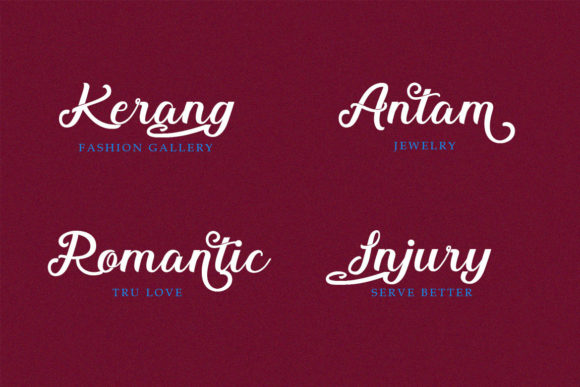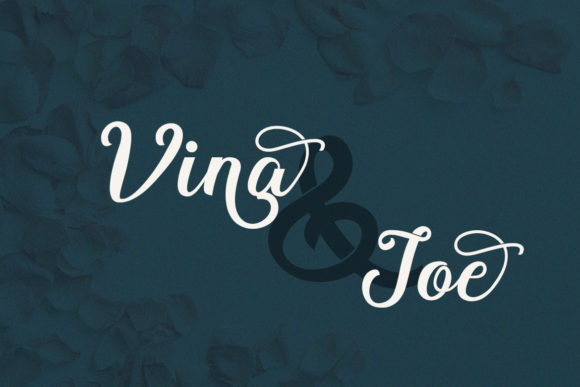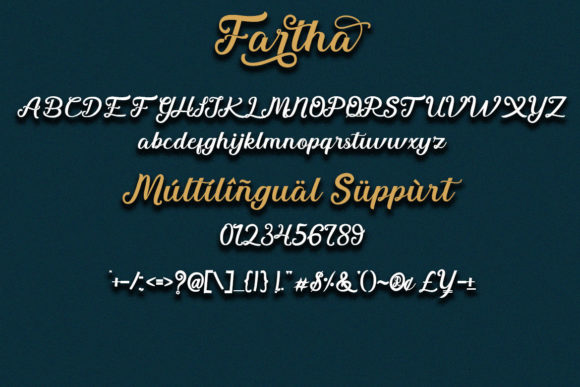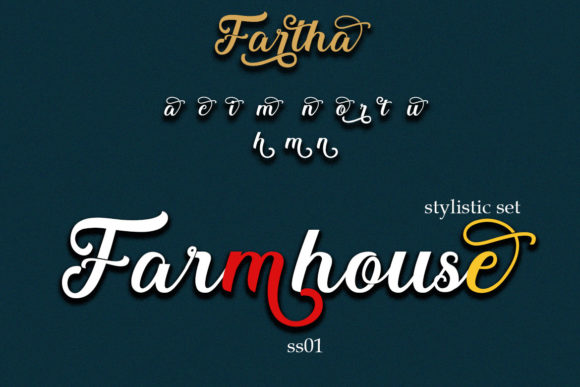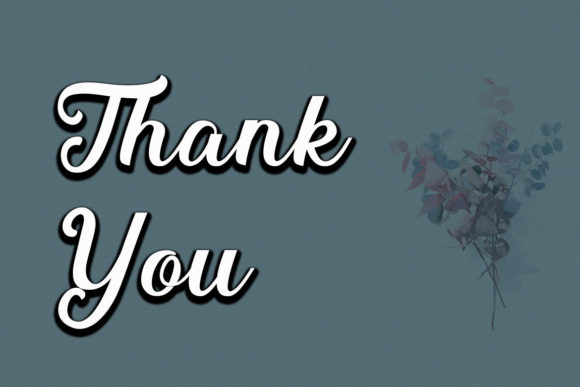
Fartha Font: Elevate Your Designs with Elegance and Sophistication
In the world of typography, fonts play a crucial role in conveying the tone and personality of a design. For designers and crafters seeking to add a touch of elegance and refinement to their work, Fartha Font is an exceptional choice. This lovely and delicate script font is specifically designed to bring a fresh and sophisticated look to various designs, making it an ideal selection for those who value beauty and class.
The Essence of Fartha Font
Fartha Font is a meticulously crafted script font that embodies elegance and poise. Its delicate strokes and refined lines create a sense of luxury, making it perfect for designs that require a high level of sophistication. Whether you’re working on a branding project, wedding invitation, or packaging design, Fartha Font is sure to impress with its beautiful and refreshing aesthetic.
Key Features of Fartha Font
- Delicate and Elegant Design: Fartha Font boasts a delicate and elegant design, characterized by smooth lines and flowing curves that exude refinement and poise.
- Script Font Style: As a script font, Fartha features connected letters that create a sense of fluidity and continuity, adding a touch of sophistication to any design.
- Highly Versatile: Fartha Font is highly versatile and can be used for a wide range of design projects, including branding, advertising, packaging, and more.
- Easy to Read: Despite its delicate nature, Fartha Font is easy to read, making it suitable for both headings and body text.
Uses of Fartha Font
Fartha Font’s versatility makes it an excellent choice for various design applications. Some of the most popular uses of this font include:
- Wedding and Event Invitations: Add a touch of elegance and sophistication to your wedding or event invitations with Fartha Font.
- Branding and Logo Design: Use Fartha Font to create a luxurious and refined brand identity that reflects your company’s values and personality.
- Packaging Design: Elevate your packaging design with Fartha Font, perfect for high-end products or special edition releases.
- Advertising and Marketing Materials: Make a lasting impression with Fartha Font in your advertising and marketing materials, such as brochures, flyers, and posters.
Tips for Using Fartha Font Effectively
To get the most out of Fartha Font, consider the following tips:
- Pair with Contrasting Fonts: Combine Fartha Font with contrasting fonts to create visual interest and hierarchy in your design.
- Adjust Font Size and Color: Experiment with different font sizes and colors to create a balanced and harmonious design.
- Use for Headings and Titles: Take advantage of Fartha Font’s elegant design by using it for headings and titles, and pair it with a simpler font for body text.
Fartha Font is a beautiful and refreshing script font that can elevate your designs with its elegance and sophistication. With its delicate design, versatility, and ease of use, this font is perfect for designers and crafters seeking to add a touch of luxury to their work. Whether you’re working on a branding project, wedding invitation, or packaging design, Fartha Font is an excellent choice for those who value beauty and refinement.